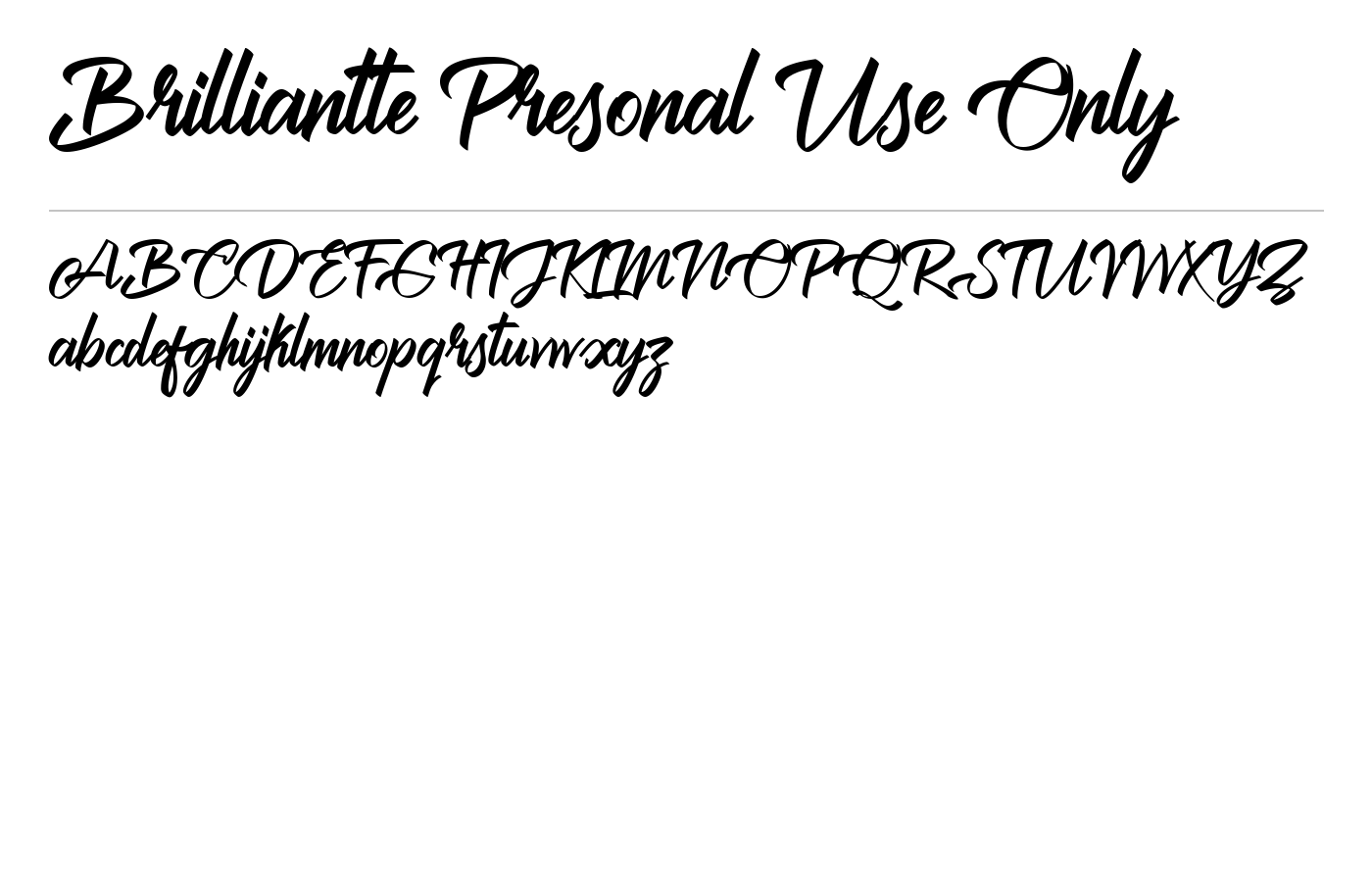
Brilliantte Personal Use Only is a lively, script-style font with smooth, flowing strokes that give it a modern and elegant hand-lettered feel. Its bold weight and fluid connections make it perfect for branding, invitations, and headlines where a warm, approachable, yet stylish look is desired. This font works best in creative projects that need a personal touch with a polished, artistic vibe.
Brilliantte Presonal Use Only Font
About Brilliantte Presonal Use Only Font
| Font family | Brilliantte Presonal Use Only Font |